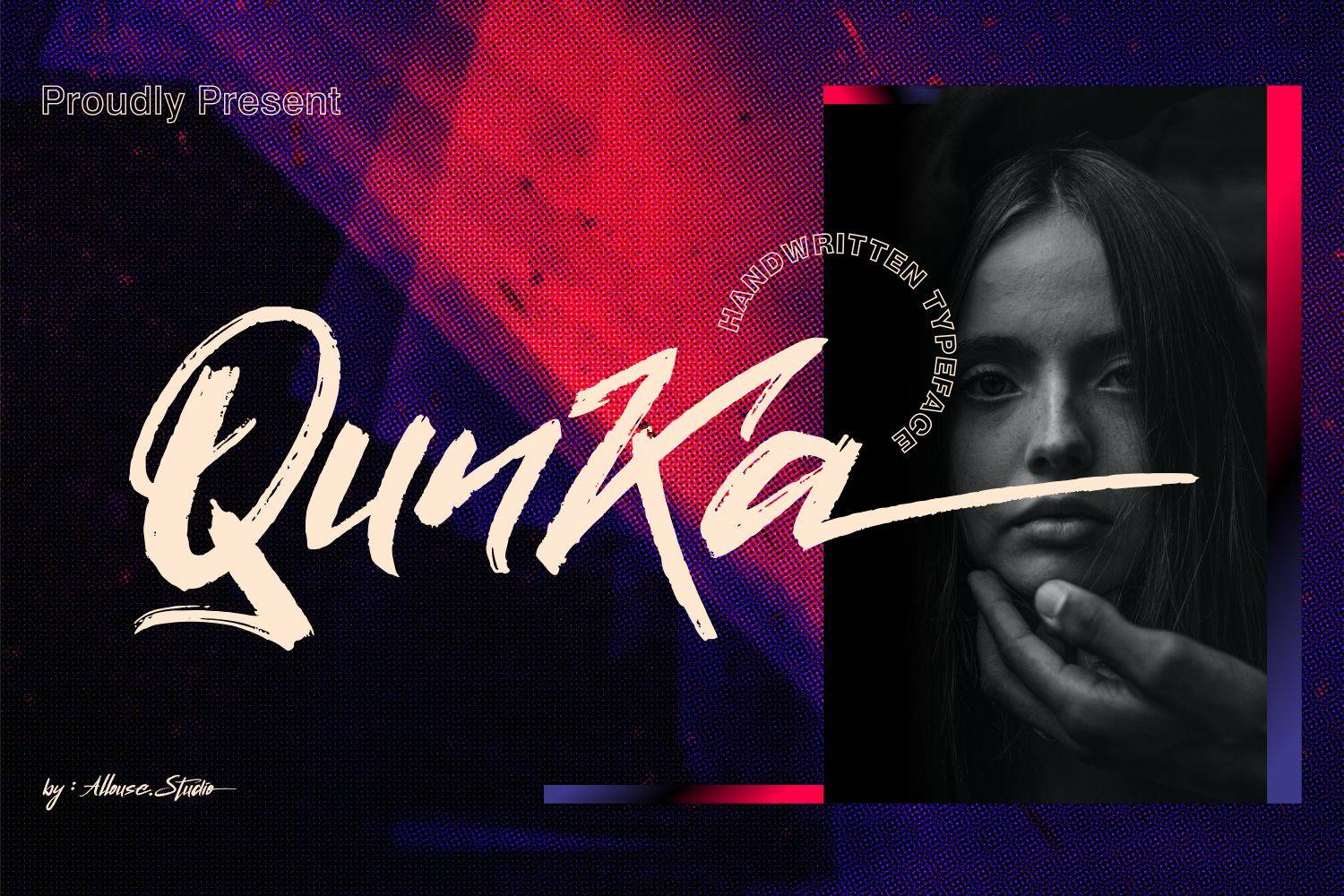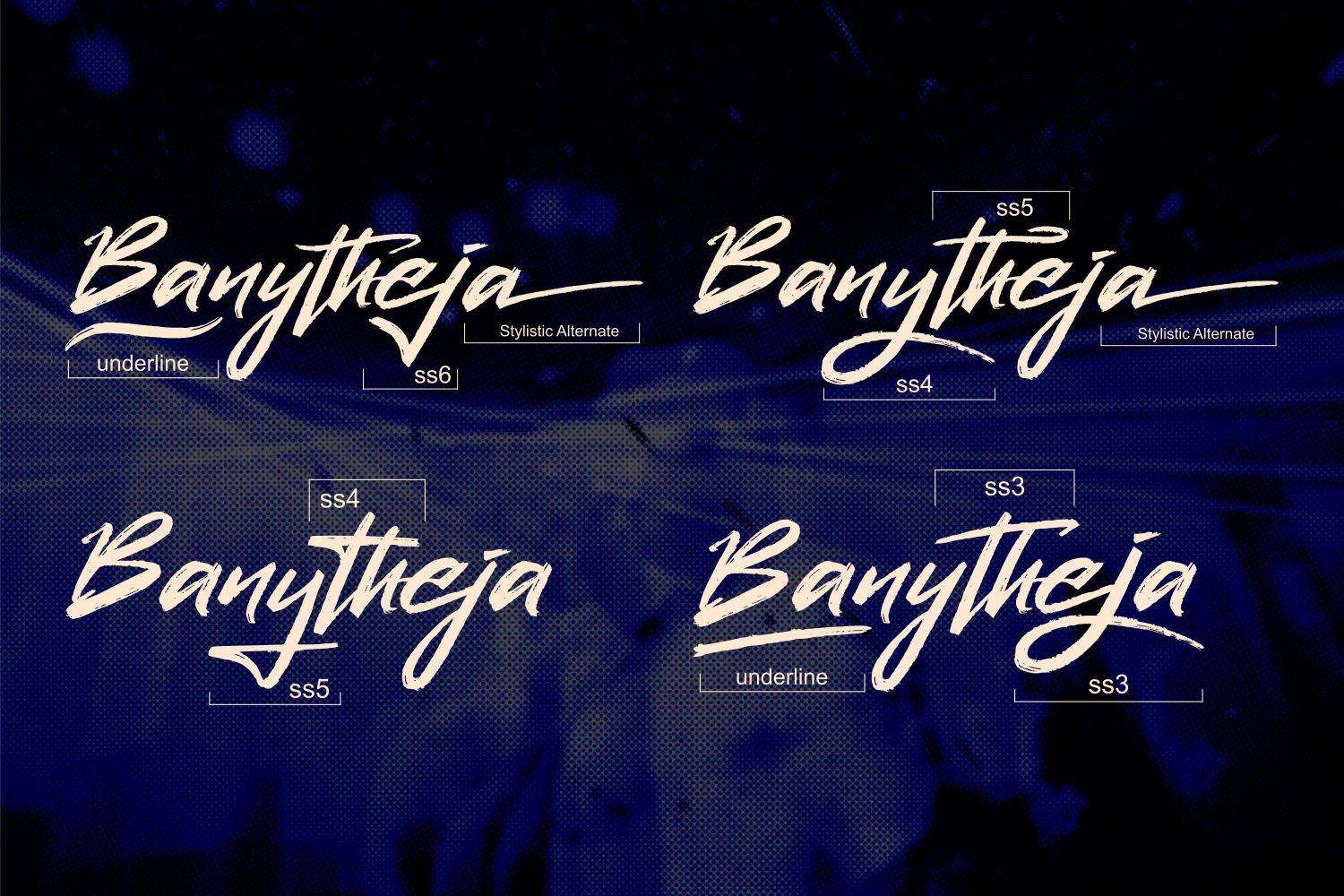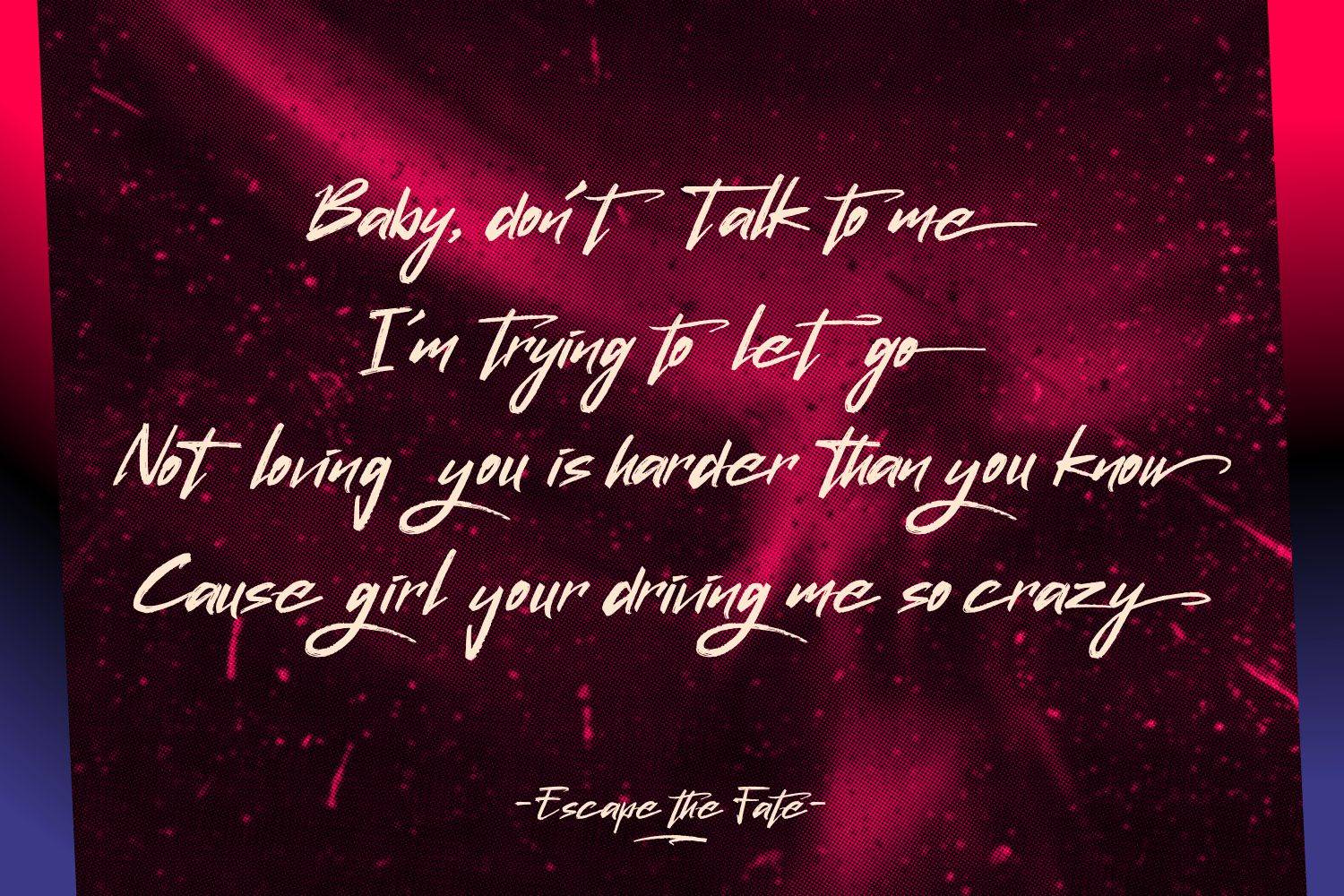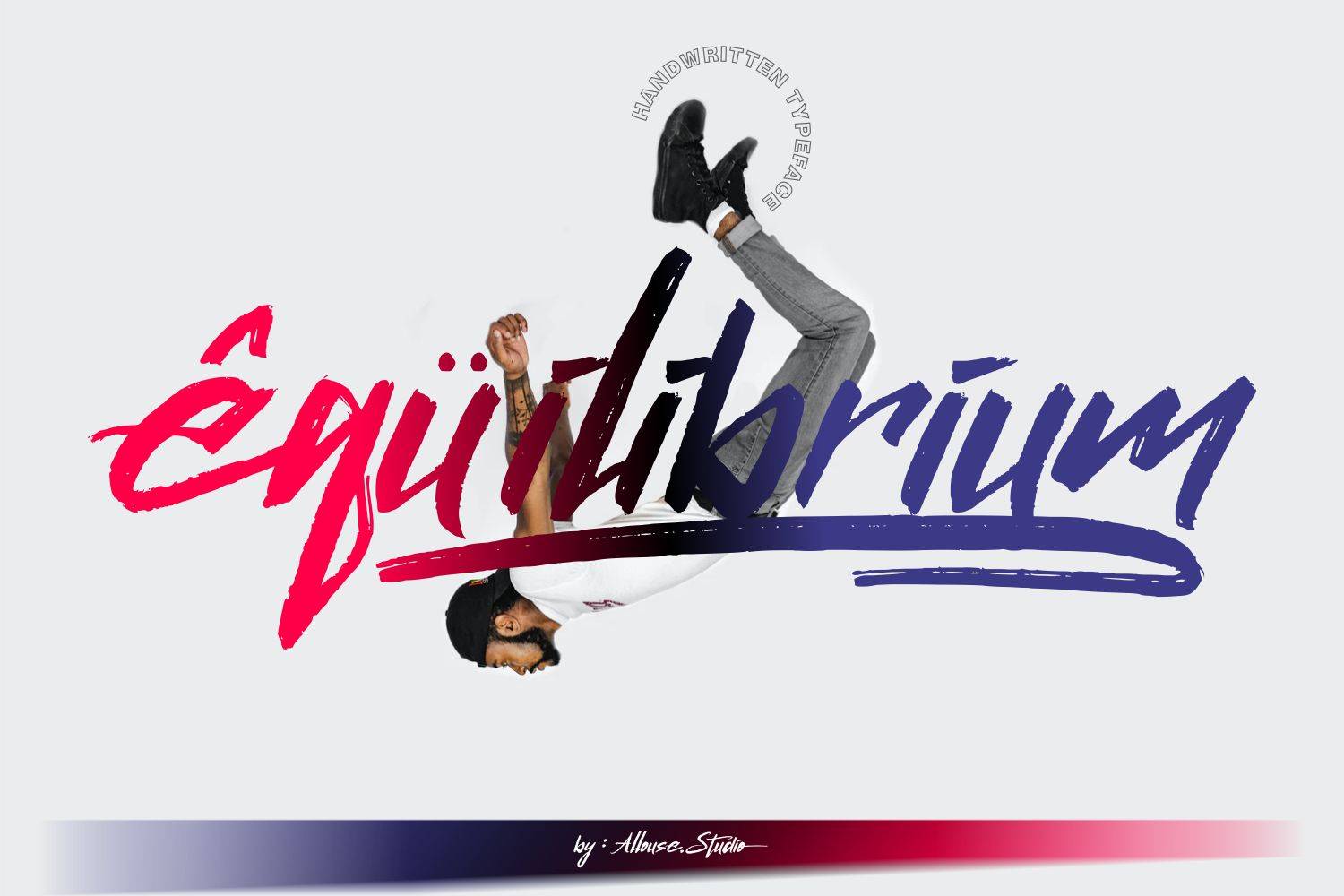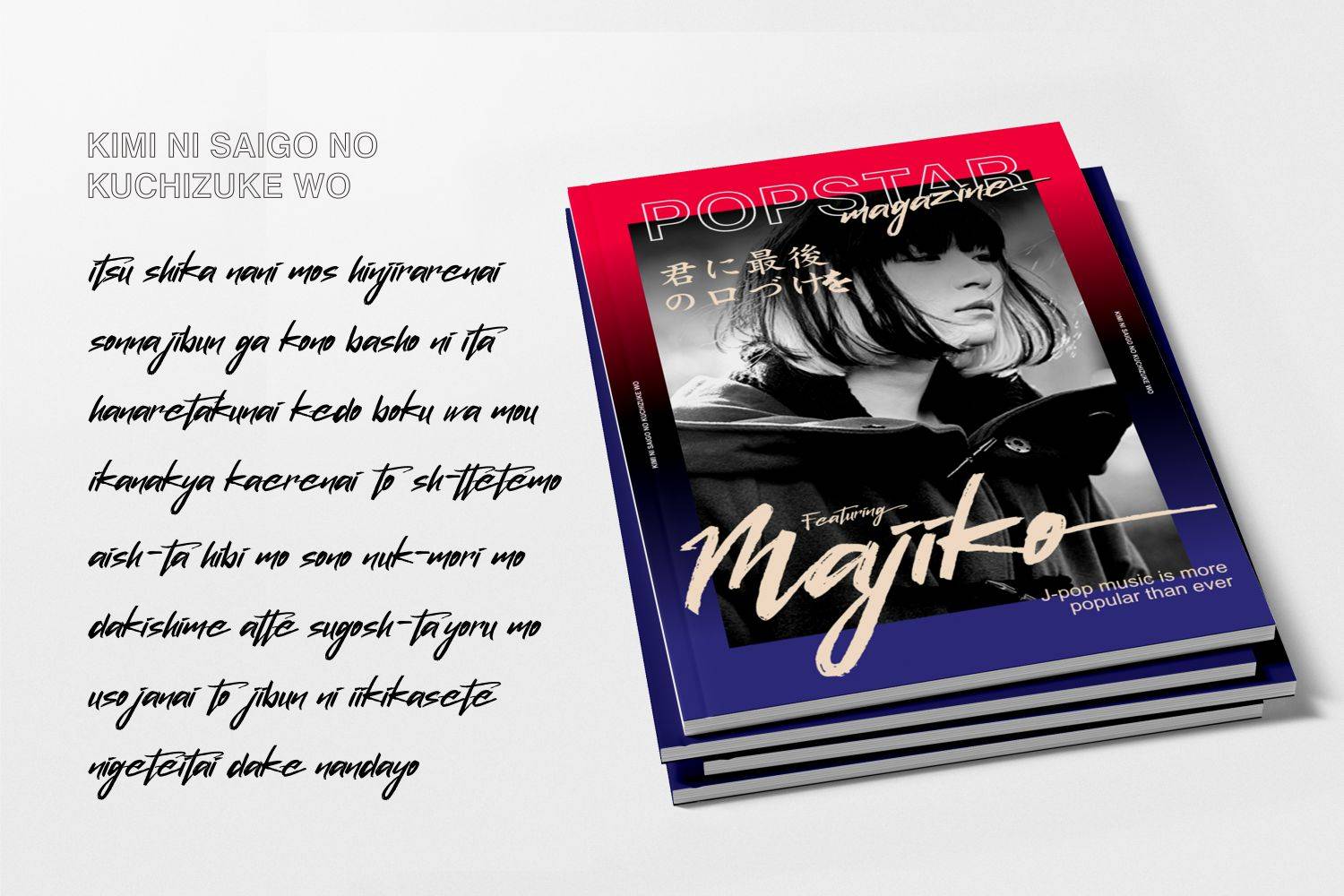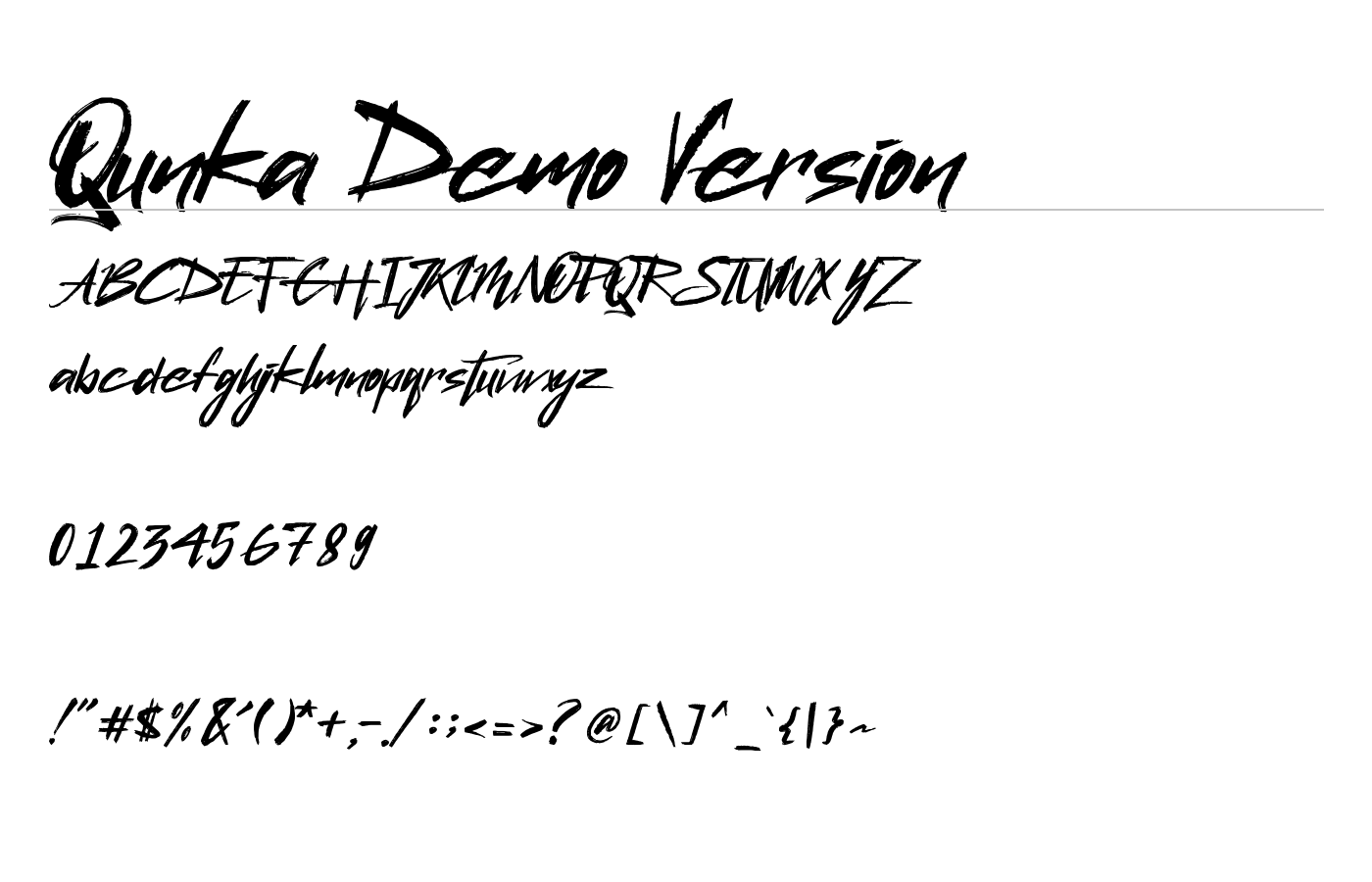
Qunka is a bold, expressive handwritten script font with a lively, brush-stroke texture that conveys energy and creativity. Its sharp, irregular lines and natural flow make it ideal for eye-catching headlines, branding, and artistic designs where a dynamic, personal touch is desired. This font works best in creative and informal contexts, adding a raw, authentic feel to projects like logos, posters, and lifestyle packaging.
Qunka Font
About Qunka Font